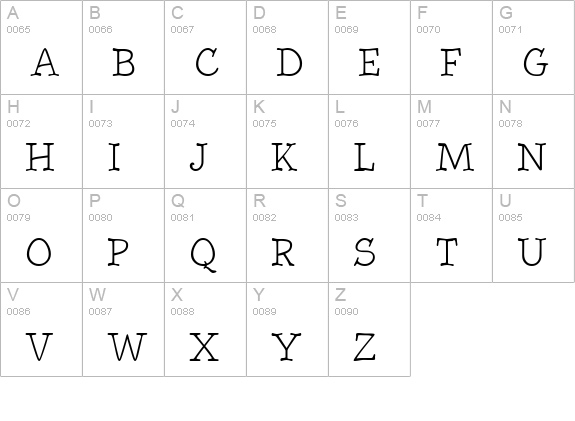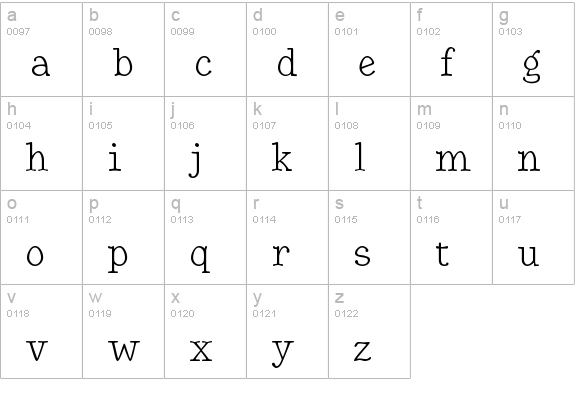
BetterKamp font is a modern and stylish typeface that effortlessly combines elegance with a touch of playfulness. Its sleek lines and unique curves make it perfect for a wide range of design projects, from logos to wedding invitations. The font features a bold and eye-catching look that will make your text stand out on any platform. What makes BetterKamp font even better is that it is available for free download at FontsMarket.com. This means you can easily access this versatile font and use it in your designs without any cost. Whether you are a professional designer or someone looking to add a creative touch to your personal projects, BetterKamp font is the perfect choice. Download it today and elevate your designs with this stunning typeface.